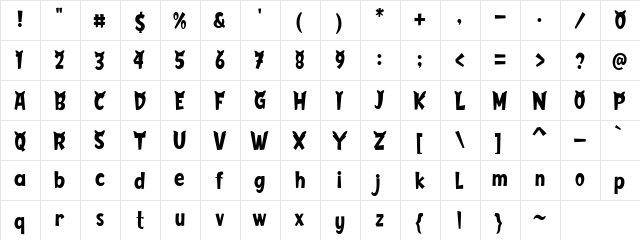
Sweety Cats Regular
Design Context for Sweety Cats Typeface
Sweety Cats is a composed and adaptable typeface that performs quietly and consistently across a wide range of design contexts.